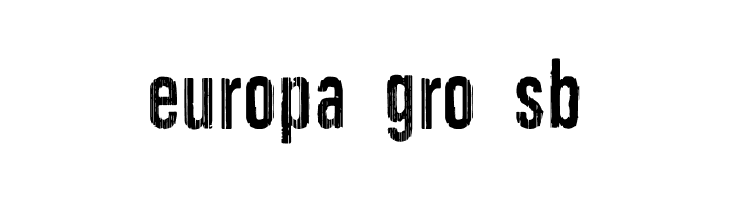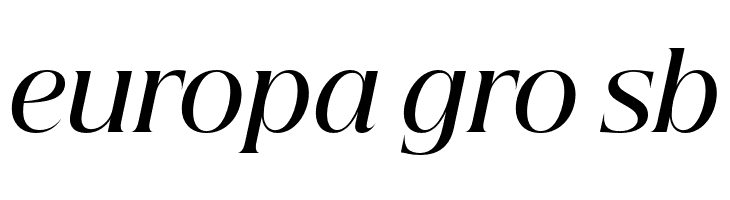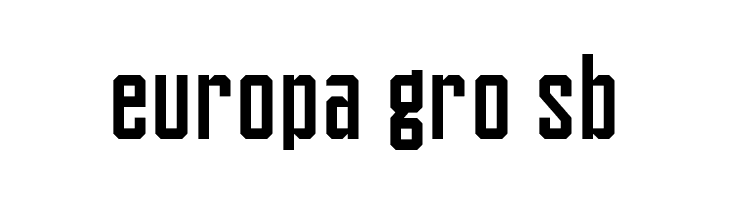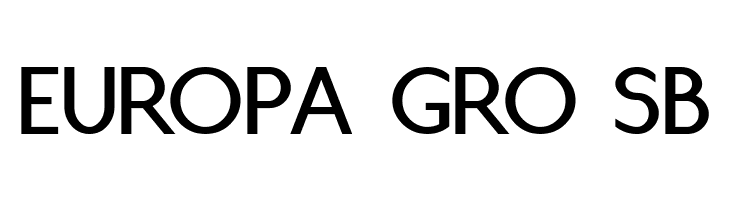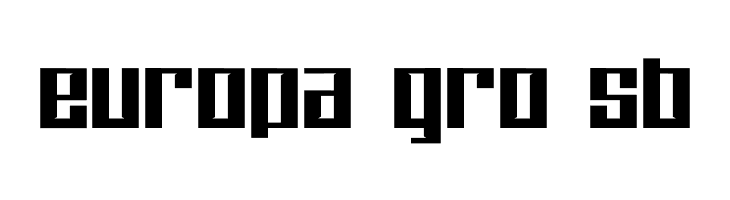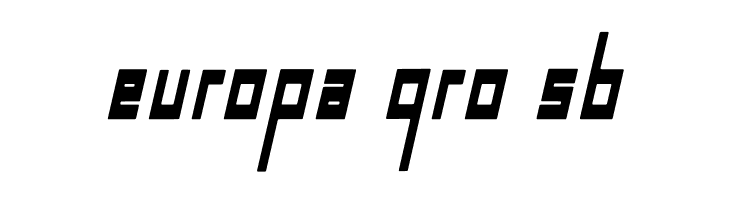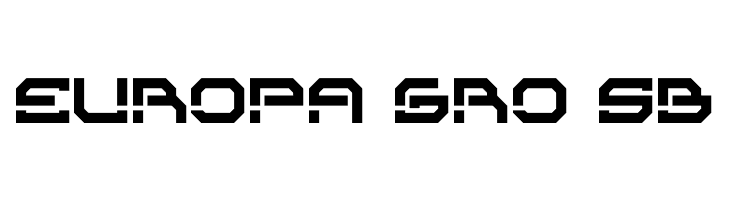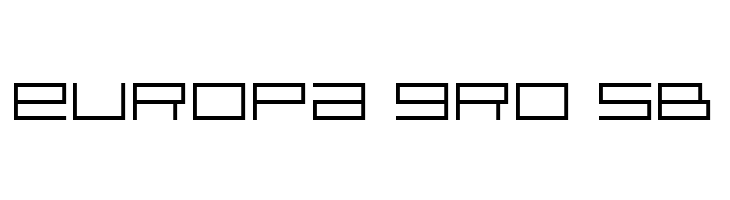
A bold, distressed font with a grunge-like texture and modern vintage appeal.
A light, handwritten font with a casual and personal style.
An elegant, italic typeface with high contrast and a modern yet vintage charm.
A bold, geometric font with an industrial and modern aesthetic.
A bold, geometric font with a modern and clean aesthetic.
A bold, geometric font with sharp, angular edges and a modern industrial feel.
A dynamic, angular font with a slanted, energetic style.
A modern, geometric font with angular, italicized characters.
A futuristic, geometric font with bold, angular shapes and cut-out sections.
A futuristic, geometric font with thin, angular strokes and consistent height.